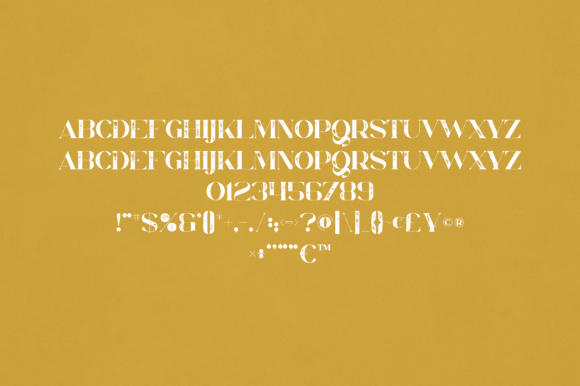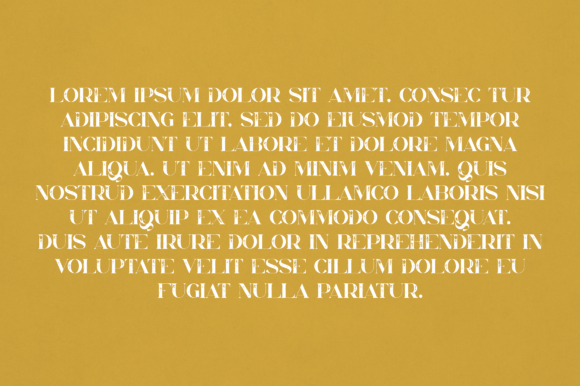
Brees Font: Elevate Your Typography with Elegance and Versatility
Are you tired of using the same old fonts for your design projects? Look no further than Brees Font, a stunning and versatile typeface that will take your typography to the next level. With its elegant and refined aesthetic, Brees Font is perfect for designers and crafters looking to add a touch of sophistication to their work.
Brees Font is a game-changer for anyone looking to create unique and eye-catching typography. Its elegant and refined design makes it perfect for a wide range of applications, from logo design and branding to product packaging and magazine headers. Whether you’re working on a commercial project or a personal craft, Brees Font is sure to impress.
What Makes Brees Font So Special?
So, what sets Brees Font apart from other fonts on the market? Here are just a few reasons why Brees Font is a cut above the rest:
- Elegant and Refined Design: Brees Font boasts a sophisticated and elegant design that is sure to elevate your typography.
- Versatility: With its clean and simple design, Brees Font can be used for a wide range of applications, from formal and professional to creative and playful.
- Unique and Eye-Catching: Brees Font is designed to stand out from the crowd, making it perfect for designers and crafters looking to create unique and memorable typography.
Brees Font is perfect for a wide range of design projects, including:
- Branding Projects: Use Brees Font to create a sophisticated and professional brand identity that will set you apart from the competition.
- Home-Ware Designs: Add a touch of elegance to your home-ware designs with Brees Font, perfect for creating stylish and eye-catching labels and packaging.
- Product Packaging: Make your product packaging stand out with Brees Font, perfect for creating unique and memorable labels and branding.
- Magazine Headers: Use Brees Font to create stunning and eye-catching magazine headers that will grab the attention of your readers.
- Text Overlays: Add a touch of style to your background images with Brees Font, perfect for creating stunning and eye-catching text overlays.
Why Choose Brees Font?
With so many fonts on the market, why choose Brees Font? Here are just a few reasons why Brees Font is the perfect choice for designers and crafters:
- High-Quality Design: Brees Font is designed to the highest standards, ensuring a clean and elegant aesthetic that will elevate your typography.
- Versatile: Brees Font can be used for a wide range of applications, making it a great addition to any designer’s or crafter’s toolkit.
In conclusion, Brees Font is a stunning and versatile typeface that is perfect for designers and crafters looking to elevate their typography. With its elegant and refined design, Brees Font is sure to impress and can be used for a wide range of applications. Whether you’re working on a commercial project or a personal craft, Brees Font is the perfect choice for anyone looking to add a touch of sophistication to their work.